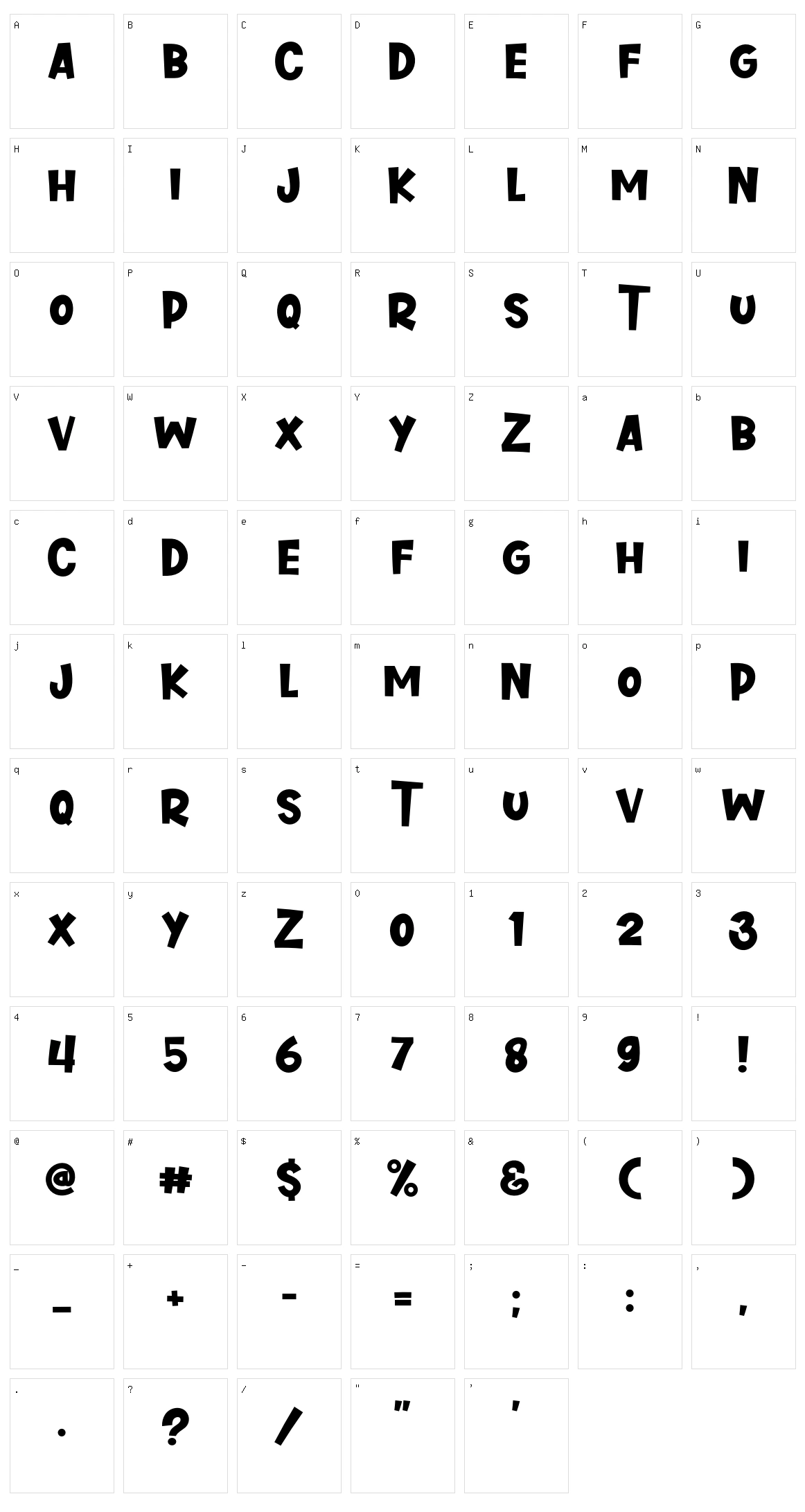
The free font Cupid Deer is carefully designed by Khurasan, showcasing a thoughtful balance of creativity and usability and falls under the Cartoon font style. When you download the ZIP file, it contains only 328.29 KB of font files, making it lightweight and quick to download. Please review the license details below to understand permitted usage and distribution rights. If license information is not available, we recommend using this font for personal projects only or contacting the author directly for commercial usage permissions.